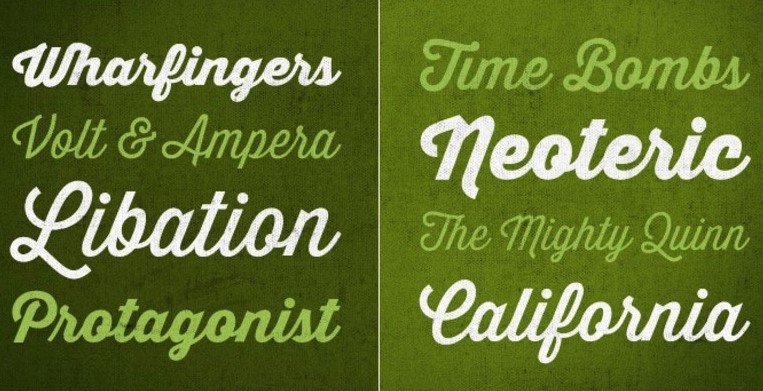
The unique and decent typeface contains consistency letters and alternates as well as comes with OpenType font features which is the perfectly fine thing for
The font we are sharing here has great popularity and having amazing ratings on the google fonts. It is Thristy Script font which was designed by Yellow Design Studio. It is a contemporary script and having so much unique stylish graphical elements.
The unique and decent typeface contains consistency letters and alternates as well as comes with OpenType font features which is the perfectly fine thing for this font.
As you can see in the image that we are providing below for you to get an idea about Its texture which has created with clean and slim futuristics strokes just to get and put an elegant and perfect designs look. The great thing of the font is that the designer added one extra feature in this font that is its bold and thik weights.
The Thirsty Script Font is the famous and amazing typeface which was designed by Yellow Designs Studio.